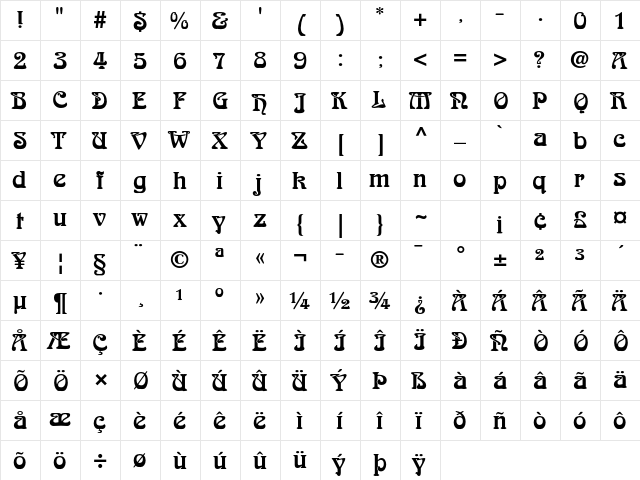
Arnold Boecklin Std Regular
| Designer | O. Weisert |
Design Context for Arnold Boecklin Std Typeface
Arnold Boecklin Std is a composed and adaptable typeface that performs quietly and consistently across a wide range of design contexts.